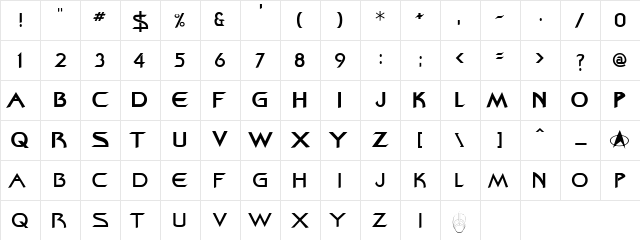
Complete Bajoran Regular glyph index. Displaying only characters natively supported by Bajoran Regular font.
Bajoran is a composed and adaptable typeface that performs quietly and consistently across a wide range of design contexts.